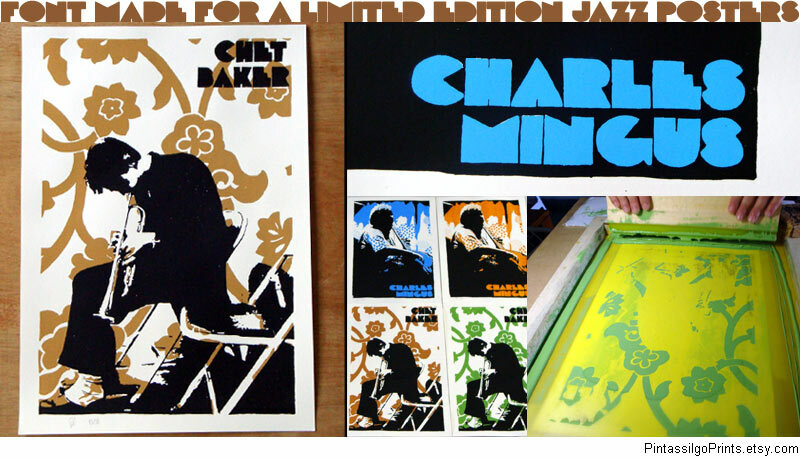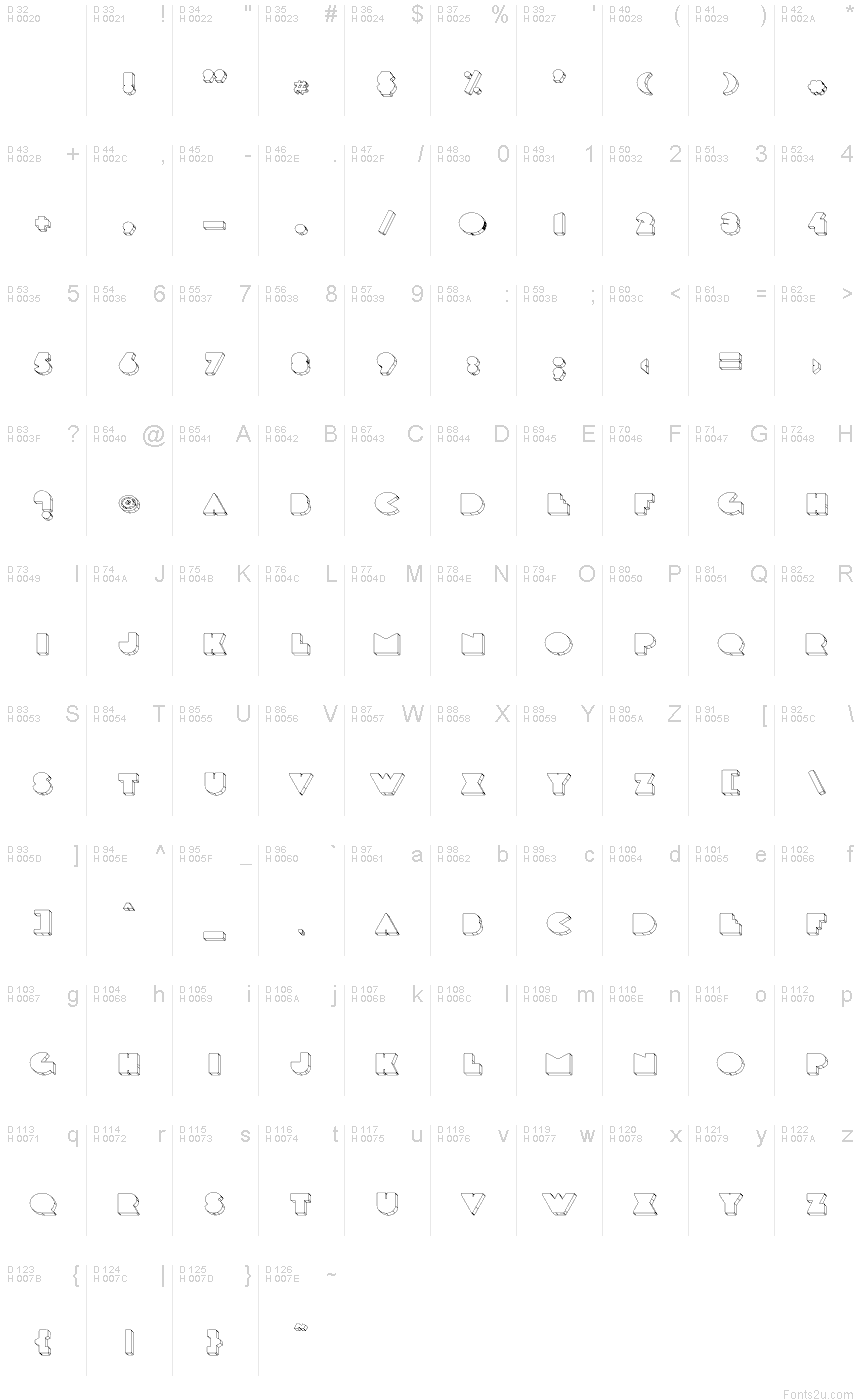
DeLarge Wired
Made for a limited handprinted jazz posters series.
This is our very first digital font. Recently we added some more glyphs and adjusted some more kerning pairs. Enjoy!